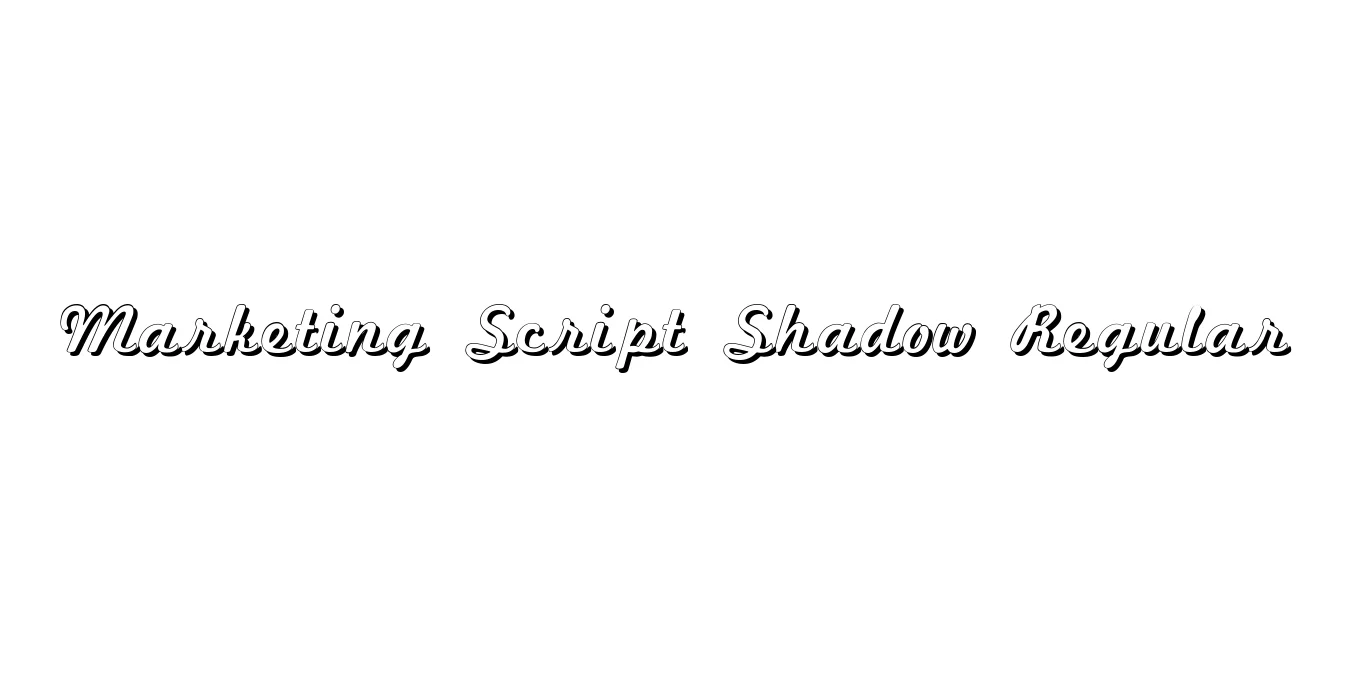
Marketing Script Shadow Regular
Designed by Dieter Steffmann
Marketing Script Shadow Regular is a classic script typeface created by the renowned German typographer Dieter Steffmann. This font is a decorative variant within the Marketing Script family, characterized by its elegant, fluid brush strokes and a distinct shadow effect that provides a sense of depth and three-dimensionality. It captures the essence of mid-20th-century commercial lettering, making it a powerful choice for projects that aim to evoke nostalgia and timeless sophistication.
The font features graceful ligatures and rhythmic curves that mimic high-quality hand-painted signage. Because of its shadowed aesthetic, it excels in display contexts where visual impact is prioritized over long-form readability. Whether used for festive invitations or bold vintage advertisements, Marketing Script Shadow Regular offers a harmonious balance between traditional calligraphy and structural bold design, ensuring that it remains a favorite among graphic designers seeking a retro-professional look.
Marketing Script Shadow Regular Best Uses
Perfect for creating retro-style logos for boutiques and cafes.
Excellent for storefront signs and window graphics that need a 3D effect.
Great for food and beverage labels looking for a heritage or artisanal feel.
Impactful for quote graphics and vintage-themed promotional posts.